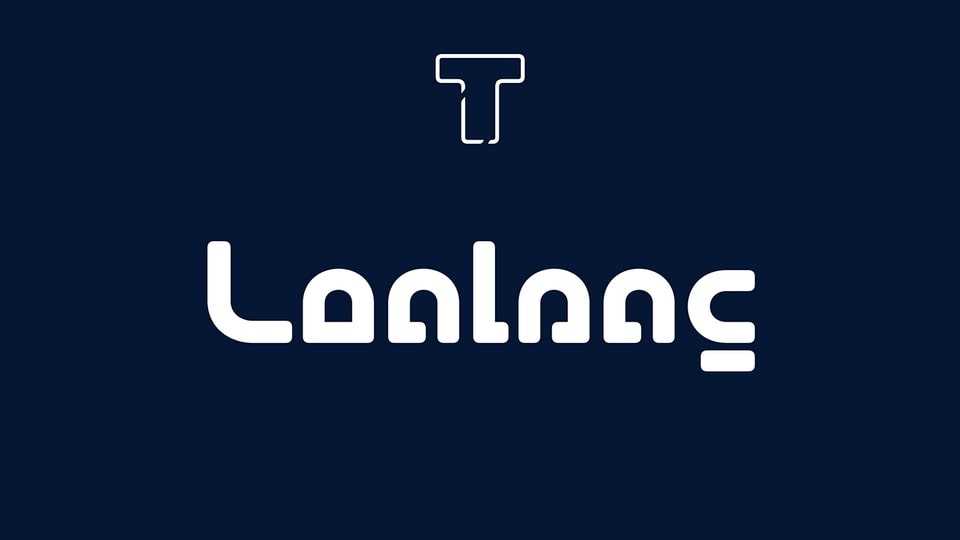
Download LT Conlang font, a typeface inspired by fictional letterforms and scripts from movies and video games, making it ideal for fantasy texts or a fun deciphering challenge.
Designer: LyonsType